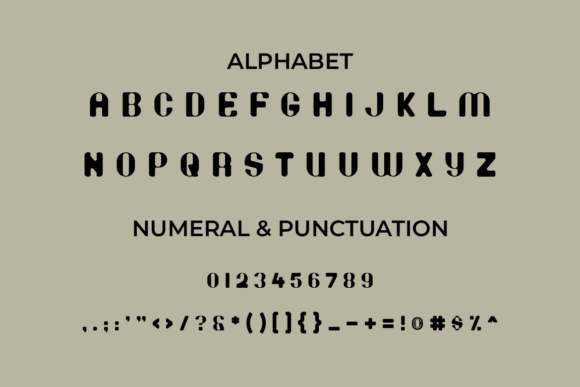
Bunder Font: Elevate Your Designs with a Cool and Modern Display Font
In the world of design, fonts play a crucial role in conveying messages, evoking emotions, and setting the tone for a brand or project. With the vast array of fonts available, finding the perfect one that stands out from the crowd can be a daunting task. However, if you’re looking for a cool and modern display font that can elevate any creation, look no further than Bunder Font. In this article, we’ll dive into the features, benefits, and uses of Bunder Font, and explore why it’s an incredible asset to your font library.
What is Bunder Font?
Bunder Font is a modern display font designed to make a statement. Its sleek and clean lines, combined with its unique style, make it perfect for a wide range of design projects, from branding and advertising to packaging and digital media. Whether you’re a designer, craftsperson, or simply a DIY enthusiast, Bunder Font is an excellent addition to your font collection.
Key Features of Bunder Font
- Cool and Modern Design: Bunder Font boasts a fresh and contemporary look that’s sure to grab attention.
- Versatile: This font can be used for various design projects, including logos, headings, titles, and more.
- Elegant and Sophisticated: Bunder Font’s clean lines and minimalist style give it an air of elegance and sophistication.
- Easy to Read: Despite its modern design, Bunder Font remains highly legible, making it perfect for use in a variety of contexts.
Benefits of Using Bunder Font
- Stand Out from the Crowd: With Bunder Font, you can create designs that are unique and attention-grabbing.
- Enhance Your Brand: This font can help you establish a strong brand identity that’s modern, sleek, and sophisticated.
- Increase Engagement: The modern and elegant design of Bunder Font is sure to engage your audience and leave a lasting impression.